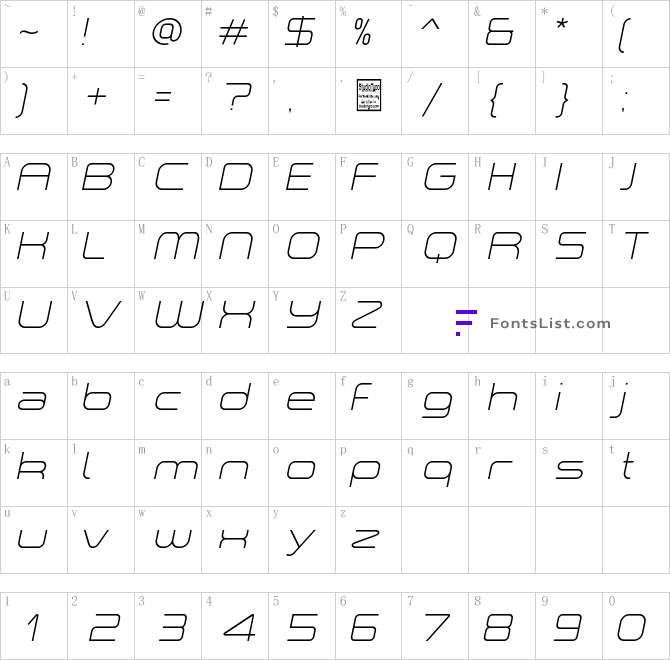
- Font Name:a•space light
a-space-light-Italic.otf is a very beautiful artistic font, a-space-light-Italic.otf is widely used in the design and printing of various books and pictures,a-space-light-Italic.otf has a strong visual impact,a-space-light-Italic.otf is a commonly used font in newspapers, magazines and books, and is used in posters, e-commerce Poster design, store design, logo design, font design and other fields.a-space-light-Italic.